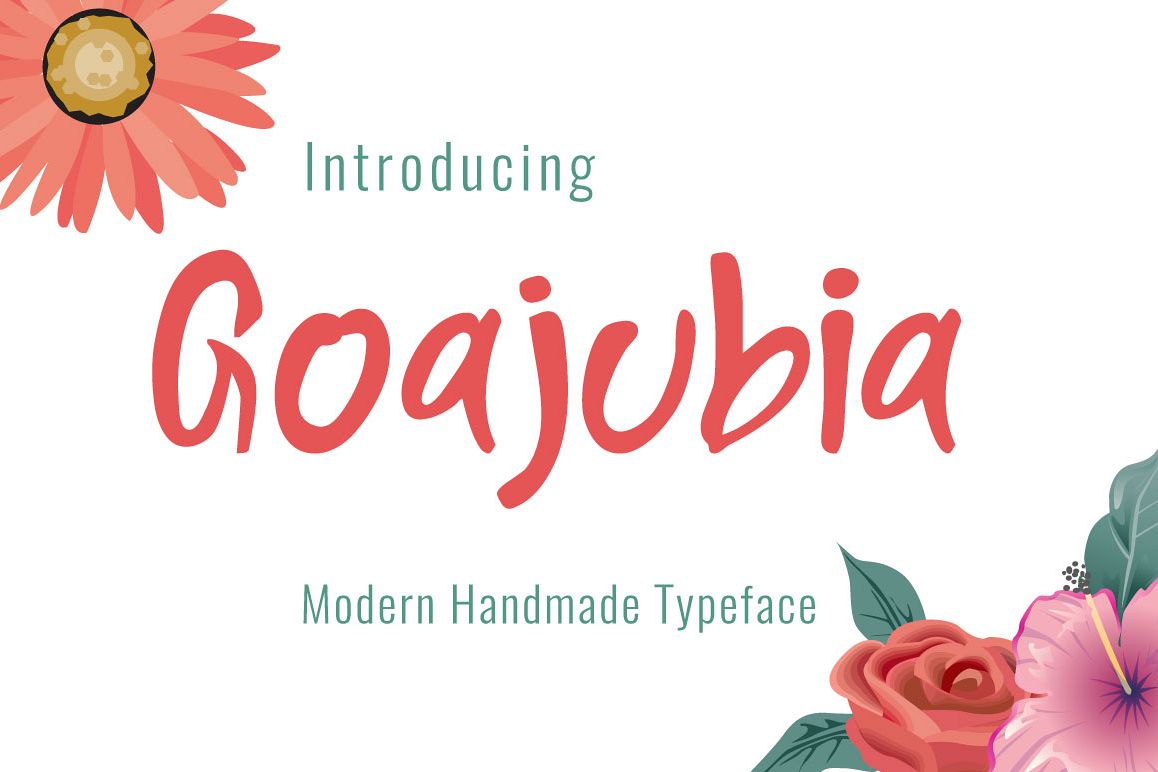
Introducing Goajubia!Goajubia a new fresh & modern handmade font! So beautiful on invitation like greeting cards, branding materials, business cards, quotes, posters, and more!